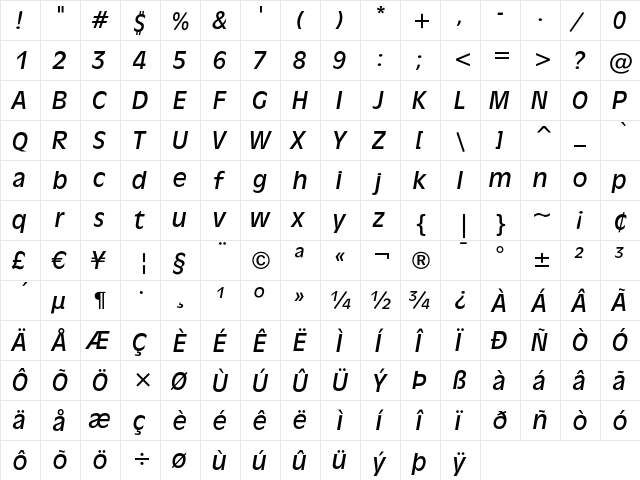
Incised 901 Italic
Design Context for Incised 901 Typeface
Incised 901 takes a measured approach to typography — its balanced proportions and neutral character make it a reliable workhorse for both digital and print work. Its italic angle brings a sense of urgency and motion to the letterforms.
Pro Tip: Try Incised 901 for annotation and caption copy alongside an upright companion — the contrast in angle creates a dynamic but ordered typographic system.